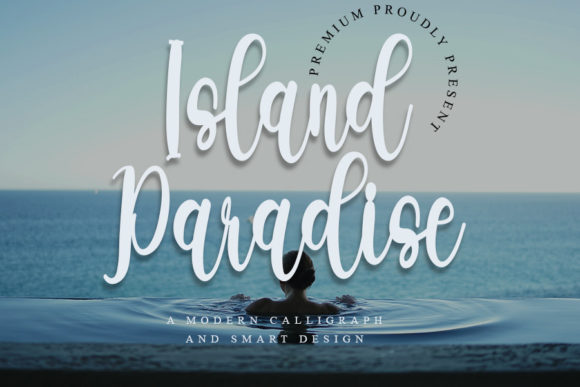
Island Paradise Font
Step into a typography oasis with Island Paradise, a script font that dances with grace across your screen. Its delicate swirls and graceful curves evoke the allure of a tropical paradise, inviting you to create designs that exude style and sophistication.
Indulge in the endless possibilities that Island Paradise unlocks. Craft eye-catching logos that instantly capture attention, or design invitations that transport your guests to a realm of elegance. Let its stylish alternates and ligatures guide your creativity, adding a touch of enchantment to every project.
Island Paradise is more than just a font; it's an expression of your unique style. Whether you're a seasoned designer or a novice lettering enthusiast, this font will elevate your creations to new heights. Its versatility knows no bounds, allowing you to weave magic across a myriad of mediums, from digital designs to captivating social media posts.
Don't settle for ordinary fonts that blend into the crowd. Embrace Island Paradise, a typographic masterpiece that will set your designs apart. Let its intricate beauty inspire you, and watch as your creations blossom into works of art.
Island Paradise is not just a font; it's a gateway to a world where creativity flourishes. Dive into its depths and discover the endless possibilities that await you.